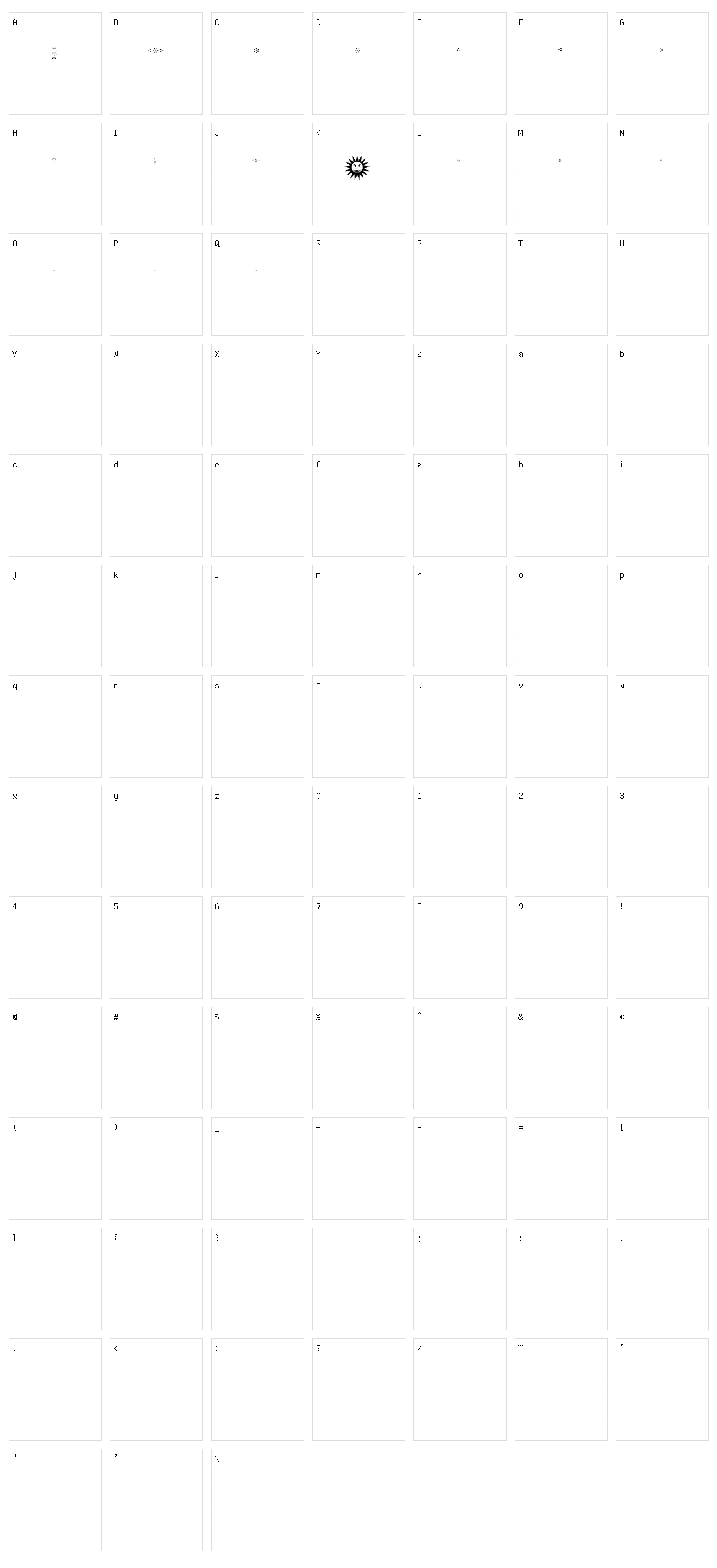
Hilda Sonnenschein
Hi! My name is Sara, and I'm a fontaholic. It's been three months since my last download (not counting yesterday), but I'm afraid I've now slipped into the area of fontmaking, with help from my friend Apostrophe who has taught me a little bit of how to do this. He's not responsible for my failings, only for some of the things I do right.
This font, Hilda Sonnenschein, is named for my German-Jewish paternal grandmother, who was said by my father to have been a proficient linguist and a truly fabulous cook. (I still use her recipe for spaghetti bolognese.) I tried to make this font busty, strong, and feminine, like the women in my family. Like all my fonts, I tried to keep it handmade looking, with rough edges here and there and elements which go together but don't precisely match. This particular font's intended use is as a very large display font, for large printed signs, banners and the like.
There are no Cyrillic characters and only very few Greek characters. This is because I don't speak Russian or Greek and don't feel comfortable trying to mess with symbols I don't really know intimately. The Greek characters here are ones I find myself using often.
I still don't really know what I'm doing as a fontographer, but I do like making letterforms. I tend to design with the idea that the people who will use my fonts will use them the way I use them, as outlines in Illustrator. This makes my fonts kind of a pain for everyone else to use. Someday, if I ever do learn everything I'm supposed to, I will go back and make these early efforts more professional. Meanwhile, though, because I don't really know what I'm doing, I've decided to stuff everything that doesn't fit into the standard character set into one of two alternate sets, the Dingbat set and the Extra Character set. Therefore, if you're looking for a non-English character that's outside of the usual 256-character list, it's probably somewhere but maybe not where you'd expect, so you should pay careful attention to the character maps in your type manager. Of course, if you only use Microsoft Word, you don't have to worry about any of this; you will find all the characters I made in the TrueType font's "Insert Symbol" menu/map. But the rest of you are kind of on your own.